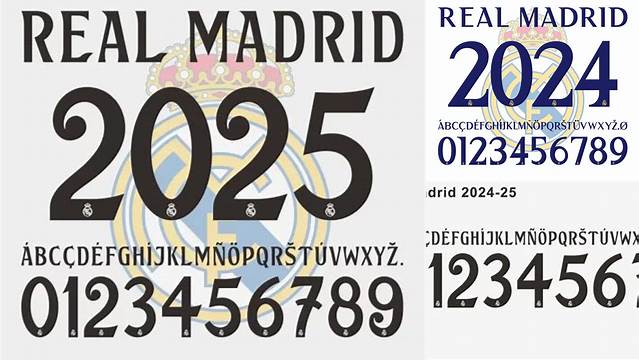
Hey guys! Are you a die-hard Real Madrid fan? Do you want to give your designs that authentic Madridista touch? Well, you're in luck! In this article, we're diving deep into the Real Madrid font for the 2024-25 season and how you can snag it for free in TTF format. Whether you're creating fan art, designing a website, or just want your documents to scream "Hala Madrid!", having the right font is key. Let's get started!
What is the Real Madrid Font?
The Real Madrid font isn't just any typeface; it's a crucial part of the club's identity. This font is used on the team's jerseys, official merchandise, and all club-related communications. It embodies the prestige, history, and modern flair of Los Blancos. The official Real Madrid font is instantly recognizable and helps maintain a consistent brand image. It's more than just letters and numbers; it's a symbol of the club's values and aspirations. The font’s design often incorporates sleek lines and a contemporary feel, reflecting Real Madrid's status as a top-tier global football club. For the 2024-25 season, subtle tweaks might be introduced to keep the look fresh while maintaining its core identity. Imagine using this font for your social media graphics, making your posts stand out with that unmistakable Real Madrid vibe. Or think about customizing your fantasy football team's logo with it, showing your unwavering support for Los Merengues. Even something as simple as using the font in your presentation slides can add a touch of class and passion. For designers, having this font in your toolkit means you can create authentic-looking fan content, mock-ups, or even contribute to fan projects with a professional edge. Whether you're designing banners, posters, or digital art, this font helps capture the spirit of Real Madrid. It's not just about aesthetics; it's about connecting with the club's rich history and passionate fanbase. The availability of the TTF version makes it incredibly accessible for both personal and creative uses, ensuring that any fan can incorporate a piece of Real Madrid into their projects. So, if you bleed white, having this font is a must!
Why You Need the Real Madrid TTF Font
Okay, so why should you even bother getting the Real Madrid TTF font? Here’s the lowdown: First off, authenticity is key. If you're creating something related to Real Madrid, using the official font adds a layer of professionalism and shows you're serious about your support. Imagine creating a banner with a generic font versus one with the actual Real Madrid typeface: the difference is night and day. Secondly, a TTF (TrueType Font) format is super versatile. You can use it on almost any computer and with a wide range of software, from Microsoft Word to Adobe Photoshop. This means you can easily incorporate the font into your documents, designs, and projects without compatibility headaches. Whether you're designing social media graphics, creating personalized gifts, or even just writing a letter, the Real Madrid font adds a special touch. Furthermore, having the Real Madrid font sets you apart. In a sea of generic fonts, using the official typeface shows attention to detail and a deeper connection to the club. It's a subtle way to signal your fandom and make your creations stand out. Think about customizing jerseys, designing wallpapers, or creating unique merchandise – the possibilities are endless with the right font. Plus, it's a fantastic resource for educational purposes. If you're teaching design or working on a project about branding, the Real Madrid font serves as a real-world example of how typography plays a critical role in a brand's identity. It’s not just about looking good; it's about conveying a message and reinforcing brand recognition. Whether you are a graphic designer, a hardcore fan, or someone who just appreciates good typography, the Real Madrid TTF font is a valuable asset. It's about more than just letters; it's about carrying the spirit of Real Madrid in everything you do. So, don't miss out on the opportunity to add this iconic font to your collection and elevate your creations to a whole new level.
Tips for Using the Real Madrid Font
Now that you’ve got the Real Madrid font installed, let’s talk about how to use it effectively. Just slapping it on everything might not give you the results you’re hoping for, so here are some tips to make the most of your new typeface. First off, consider the context. The Real Madrid font is bold and sporty, so it’s perfect for headlines, banners, and anything that needs to grab attention. However, it might not be the best choice for long blocks of text or formal documents. Think about using it sparingly to highlight key information or add a touch of flair. Secondly, pay attention to sizing and spacing. Experiment with different font sizes to see what looks best for your project. Adjust the letter spacing (tracking) and line height (leading) to improve readability. A little bit of tweaking can make a big difference in how the font looks. Color is another important factor. The Real Madrid font typically looks great in white, gold, or the club’s official colors. However, don’t be afraid to experiment with other colors to see what works best for your design. Just make sure the color complements the overall aesthetic and doesn’t clash with other elements. When using the Real Madrid font in digital designs, consider adding effects like shadows, outlines, or gradients to make it stand out even more. These effects can add depth and dimension to the font, making it more visually appealing. Also, think about pairing the Real Madrid font with other typefaces. A classic sans-serif font like Arial or Helvetica can complement the sporty look of the Real Madrid font without overpowering it. The key is to choose a font that is easy to read and doesn’t compete with the Real Madrid font for attention. Remember to respect the club’s brand guidelines. While you’re free to use the font for personal projects, avoid using it in ways that could be misleading or infringe on the club’s trademarks. Always use the font responsibly and ethically. Finally, don’t be afraid to get creative and experiment with the Real Madrid font. Try using it in unexpected ways to see what you can come up with. The possibilities are endless, so have fun and let your creativity shine. With these tips in mind, you’ll be able to use the Real Madrid font like a pro and create stunning designs that showcase your love for Los Blancos. Hala Madrid!
So there you have it, folks! Everything you need to know about finding and using the Real Madrid font for the 2024-25 season. With a bit of searching, downloading, and installing, you can add that authentic Madridista touch to all your designs. Whether you're a die-hard fan, a graphic designer, or just someone who appreciates great typography, the Real Madrid font is a valuable asset. Remember to use it responsibly, get creative, and most importantly, Hala Madrid! Now go out there and create something amazing!